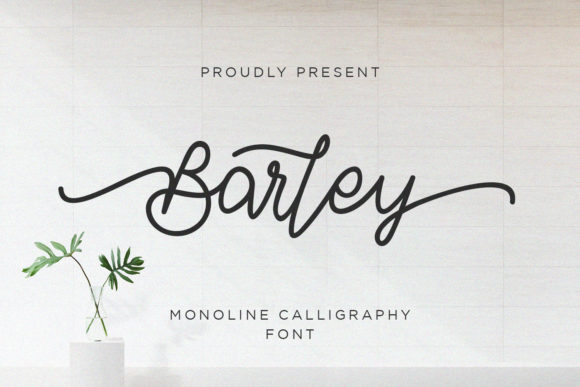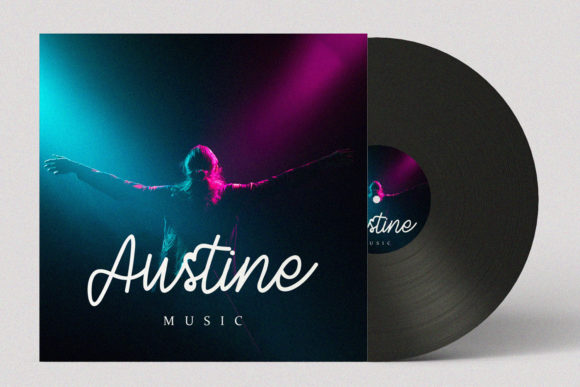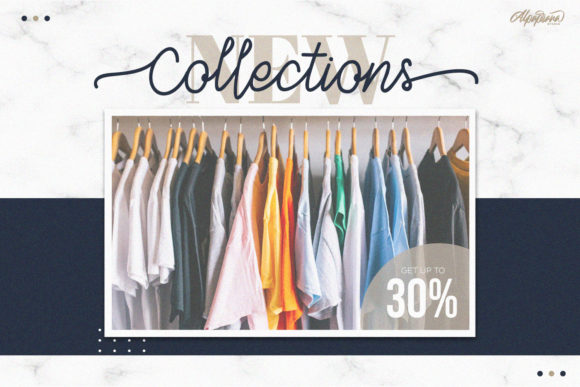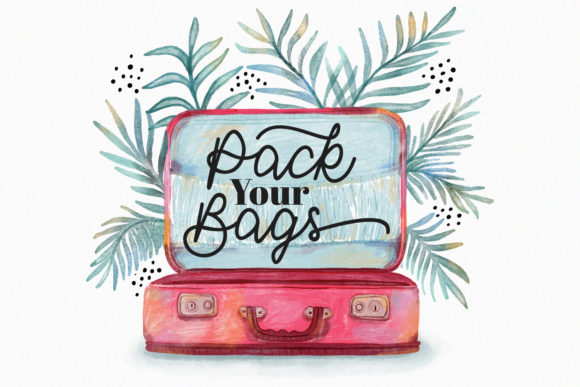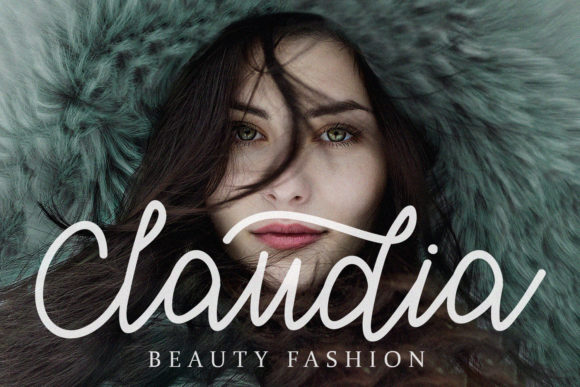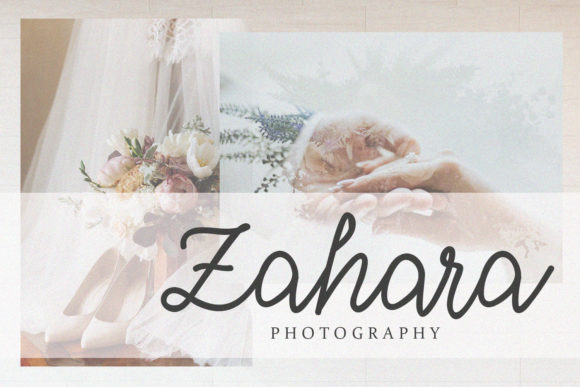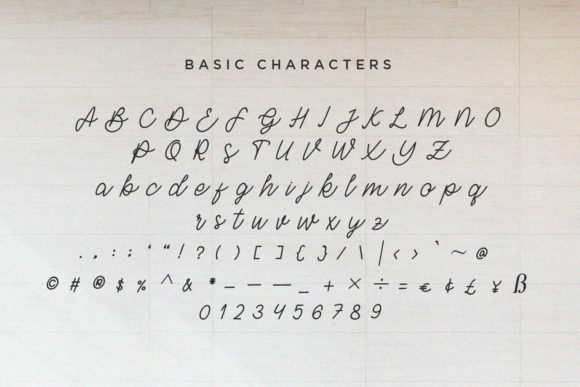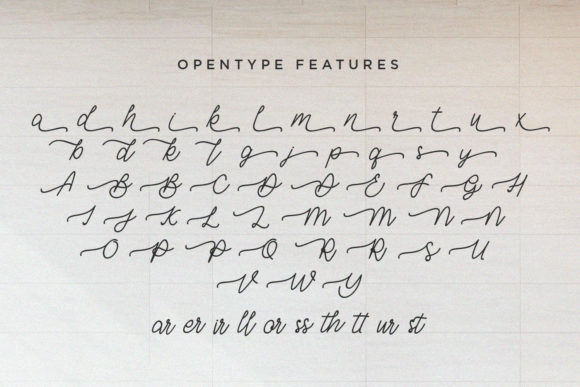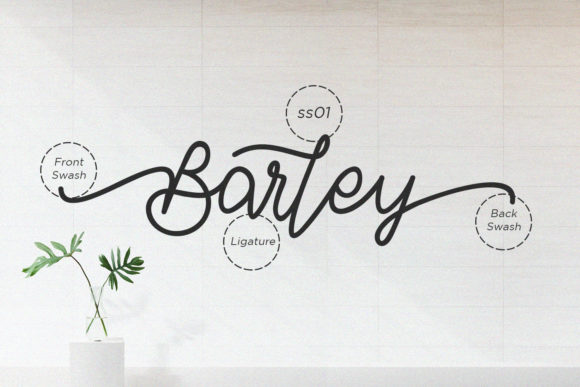
Barley Font
About Barley Font
Barley is a stunning script font with authentic and casual feels. Fall in love with its incredibly versatile style and use it to create gorgeous wedding invitations, beautiful stationary art, eye-catching social media posts, and much more!